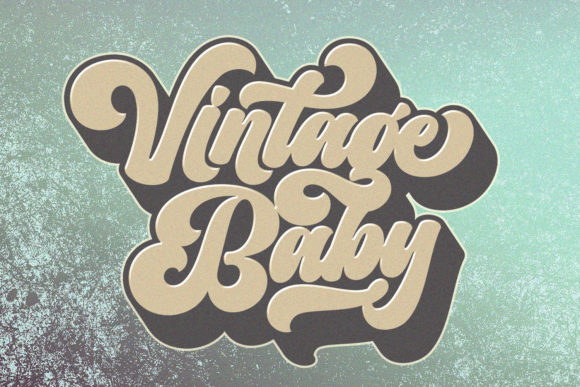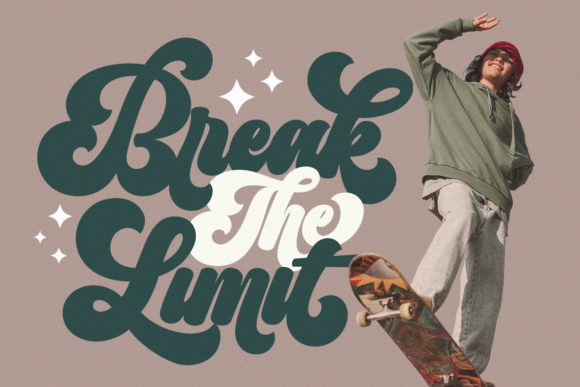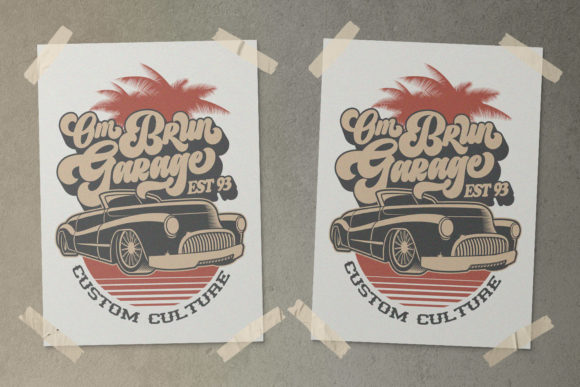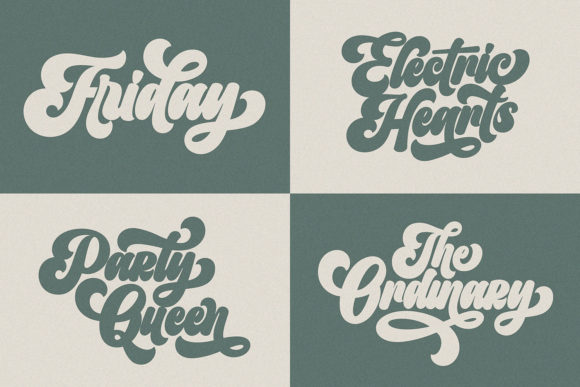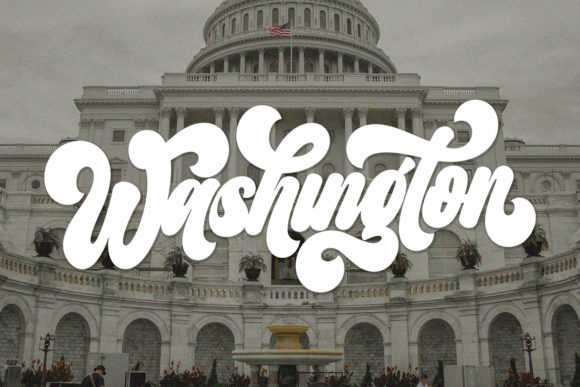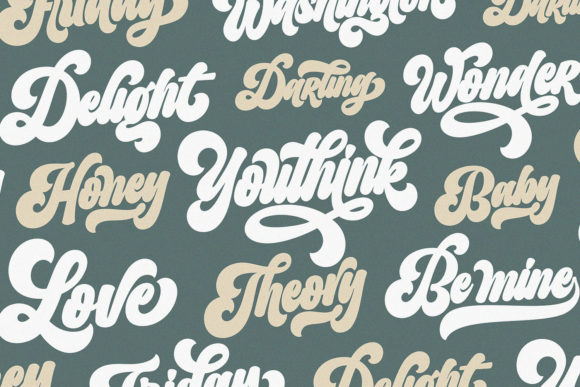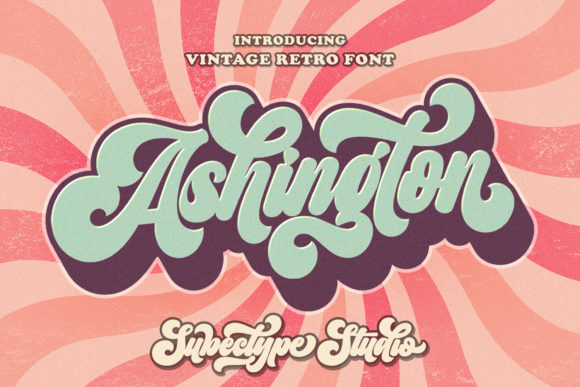
The Ashington Font: A Vintage Gem for Your Designs
I’ll never forget the time I was working on a project for a client who wanted a bold, vintage look. I spent hours scouring the internet for the perfect font, but nothing seemed quite right. That was until I stumbled upon the Ashington font. Its ravishing style and bold, handwritten aesthetic immediately caught my eye, and I knew I had found the one. In this article, I’ll share my love for the Ashington font, its features, and how to make the most of it in your designs.
A Personal Review: What I Love About Ashington
So, what makes Ashington so special? Here are a few things that I absolutely love:
- ✨ Vintage and bold: Ashington has a unique, eye-catching style that’s perfect for making a statement.
- ✅ PUA encoded: This means that you can access all glyphs and swashes with ease, giving you endless creative possibilities.
- 💫 Handwritten aesthetic: Ashington has a beautiful, organic feel that’s perfect for adding a personal touch to your designs.
While Ashington is an amazing font, there are a few small quirks to be aware of:
- 🤔 Some characters may require manual kerning: As with any font, you may need to adjust the kerning on certain characters to get the perfect look.
- ⚠️ Not suitable for body text: Ashington is a bold, attention-grabbing font that’s best used for headings and titles.
The Story Behind Ashington
Ashington was designed with the goal of creating a bold, vintage font that’s perfect for making a statement. The designer wanted to create a font that would evoke the feeling of a bygone era, while still being modern and versatile. With its ravishing style and PUA encoding, Ashington is the perfect choice for designers, crafters, and creative hobbyists alike.
| What is PUA encoding? | PUA (Private Use Area) encoding allows designers to access a range of glyphs and swashes that can be used to customize their designs. |
| Is Ashington suitable for body text? | No, Ashington is a bold, attention-grabbing font that’s best used for headings and titles. |